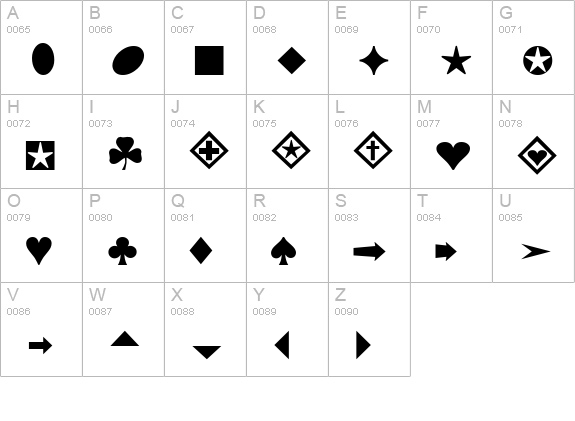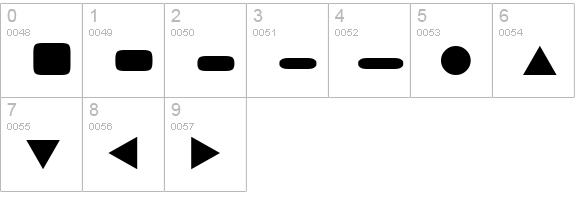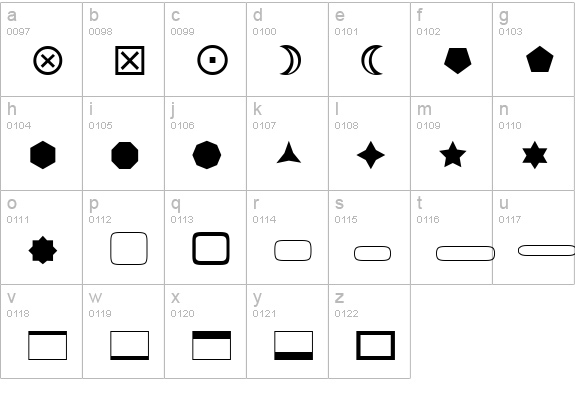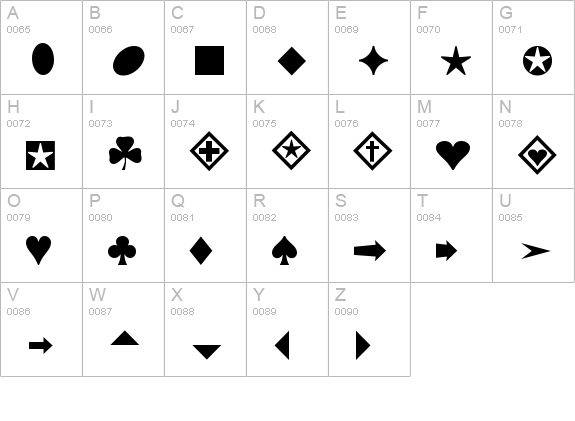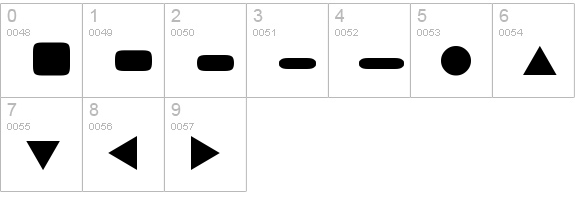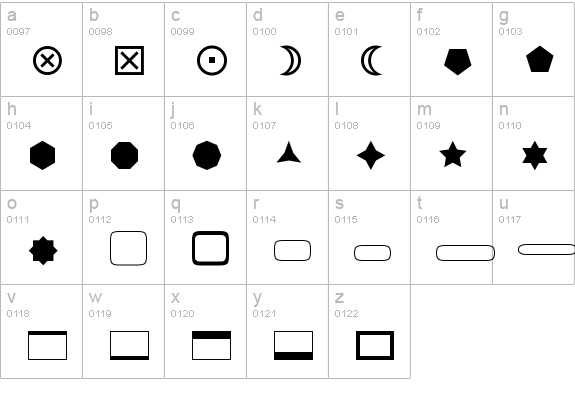
FnT_BasicShapes1 font is a unique and versatile typeface that features a collection of basic geometric shapes. This font is perfect for creating eye-catching designs, posters, and logos. With its clean lines and modern aesthetic, FnT_BasicShapes1 font adds a touch of sophistication to any project. The best part is that FnT_BasicShapes1 font is available for free download at FontsMarket.com. Whether you're a designer looking to add some flair to your work or a hobbyist exploring different typography options, this font is sure to impress. Don't miss out on the opportunity to enhance your designs with this stylish and contemporary typeface. Download FnT_BasicShapes1 font today and let your creativity shine!